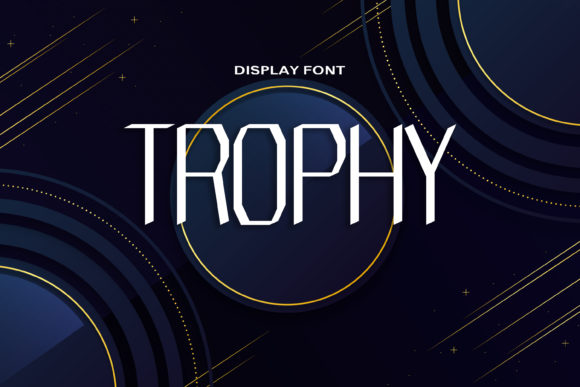
Embrace the essence of modernity and embark on a typographic odyssey with Trophy Font, a captivating creation from DmDesignsStoreArt. This display font, meticulously crafted with clean lines and geometric precision, promises to elevate your branding endeavors to remarkable heights. Its strong and bold presence is ideally suited for breathing life into striking posters, leaving an indelible mark on the visual landscape. Furthermore, Trophy Font's digital prowess makes it the perfect companion for web and app development, allowing you to forge an unforgettable online presence.
Unleash the boundless potential of Trophy Font and adorn your creative projects with a touch of sophistication. Its sharp angles and crisp edges exude an air of confidence and innovation, making it the ideal choice for crafting logos that leave a lasting impression. Imagine your brand's identity soaring to new heights, capturing the attention of your target audience with an emblem that radiates boldness and modernity.
Transport your audience to a realm of visual delight with Trophy Font's captivating posters. Its striking presence demands attention, transforming ordinary messages into captivating narratives. Create posters that ignite imaginations and leave a lasting impact, whether promoting an upcoming event, showcasing your products, or simply sharing an inspiring message. Trophy Font will elevate your words, transforming them into visual masterpieces that captivate and enthrall.
In the realm of web and app development, Trophy Font emerges as a digital virtuoso. Its clean lines and geometric precision translate effortlessly into captivating user interfaces that exude both functionality and elegance. Craft websites that offer an immersive experience, seamlessly guiding users through your digital landscape. Design mobile applications that captivate and engage, leaving users yearning for more. With Trophy Font as your digital ally, the possibilities are limitless, allowing you to forge an online presence that stands out from the mundane.
Discover the transformative power of Trophy Font and witness the metamorphosis of your creative endeavors. Embrace its versatility and let your imagination run wild, knowing that this remarkable font will effortlessly adapt to your every need. Whether you seek to craft a brand identity that resonates with your audience, design posters that leave a lasting impression, or develop digital platforms that captivate users, Trophy Font is your steadfast companion, ready to elevate your creations to new heights of brilliance.